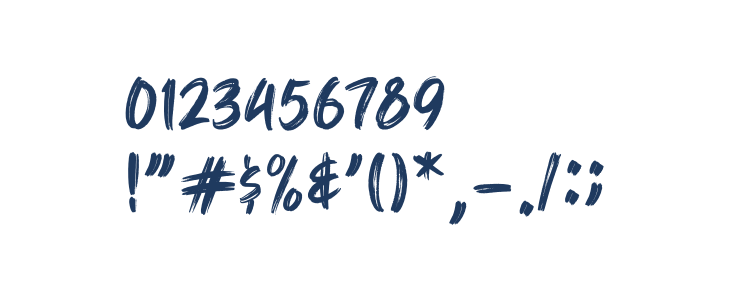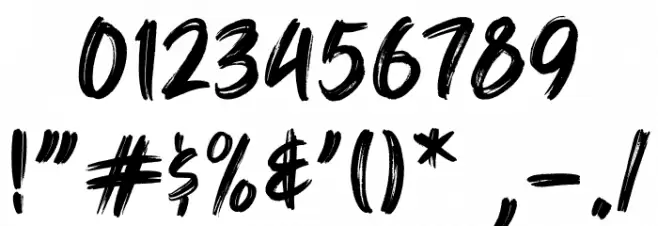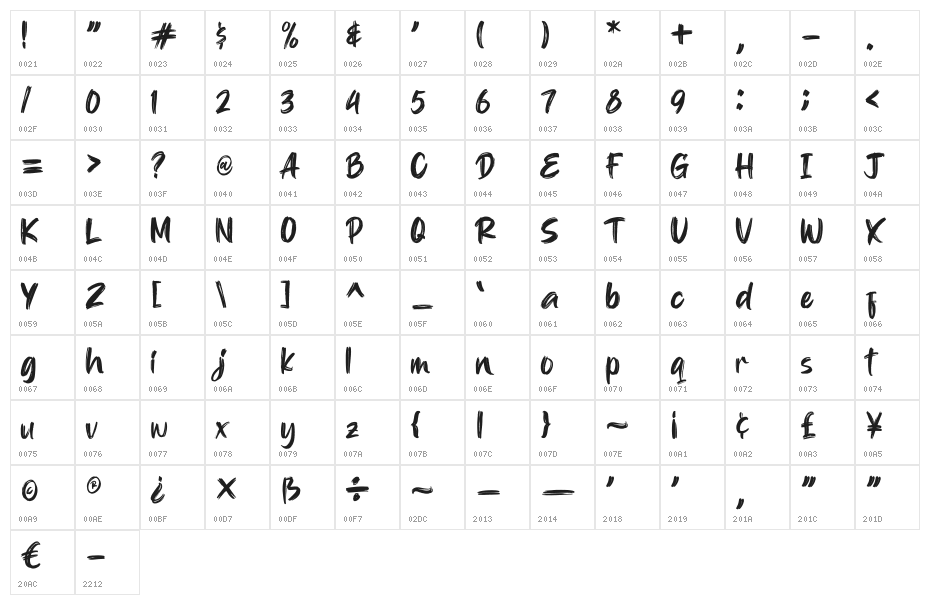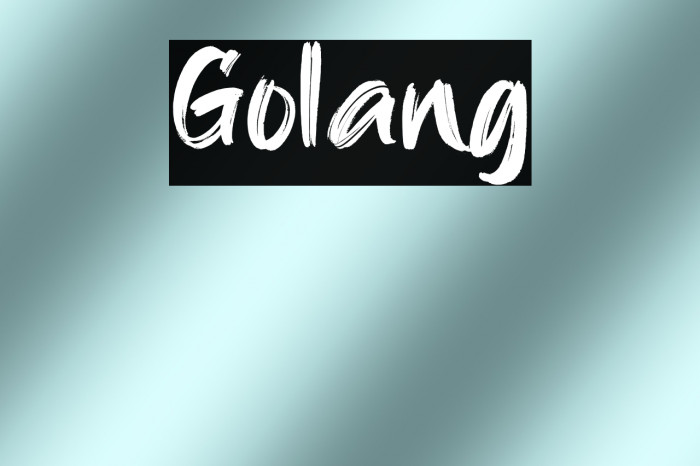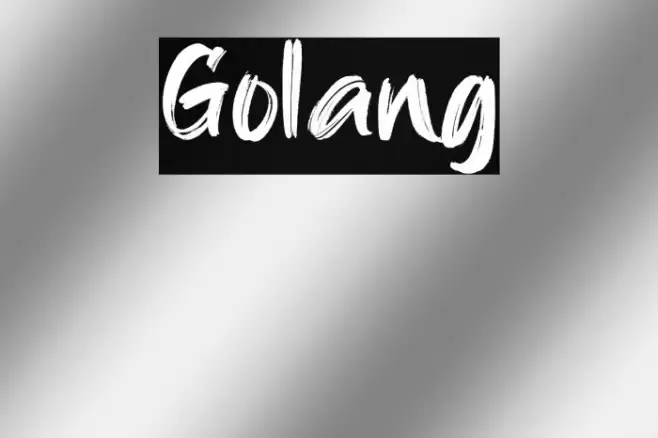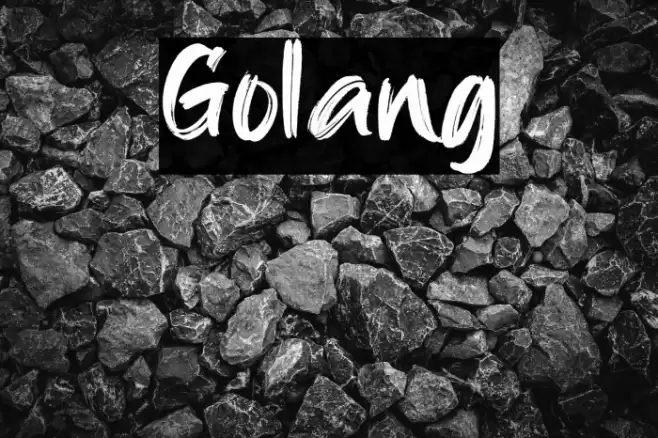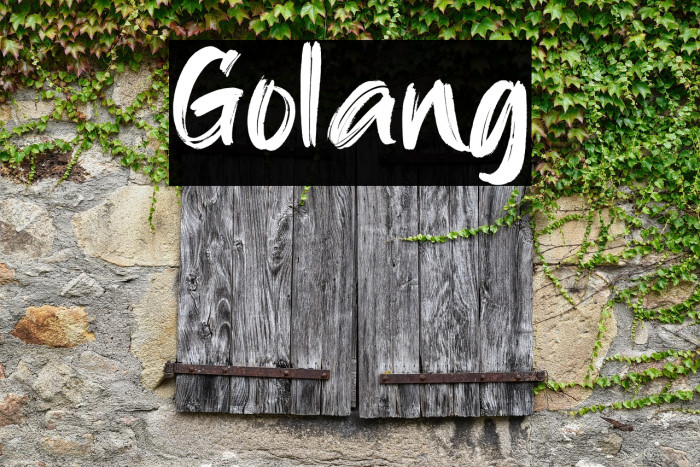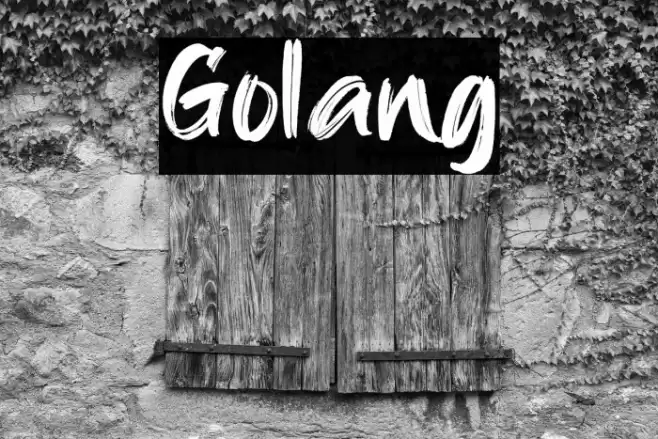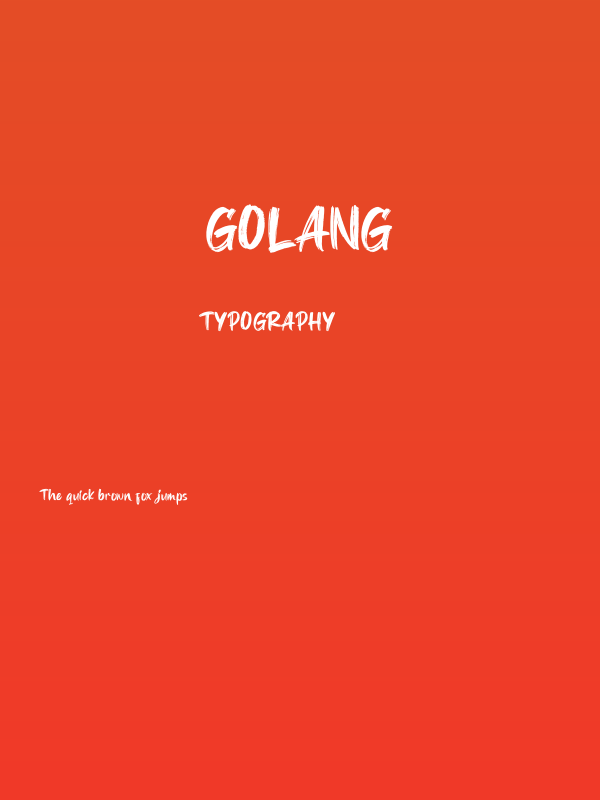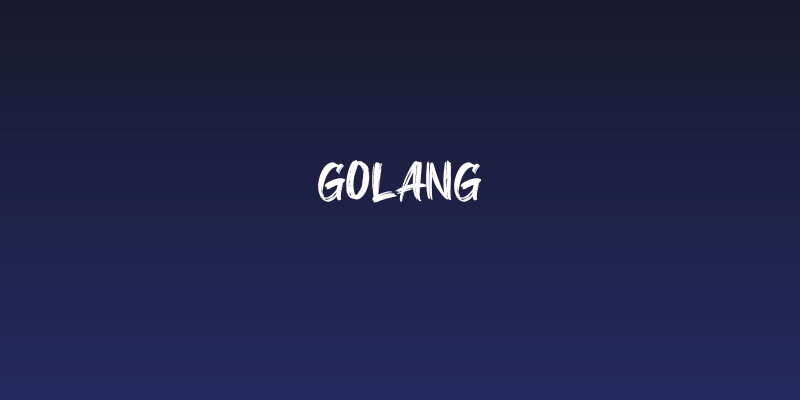
Golang Font
Golang Description
This font features a bold, brush-like style with a hand-painted appearance. The strokes are dynamic and energetic, giving each character a sense of movement and fluidity. The uppercase and lowercase letters are consistent in their artistic flair, with varying stroke widths that add a natural, handcrafted feel. The numbers and special characters maintain this aesthetic, ensuring a cohesive look across all elements. The font's expressive nature makes it ideal for projects that require a personal touch or a creative edge.
| Use Case | Logos, Posters, Creative Designs |
| Proposed Projects | Ideal for branding, posters, artistic projects, and any design requiring a creative, handcrafted look. |